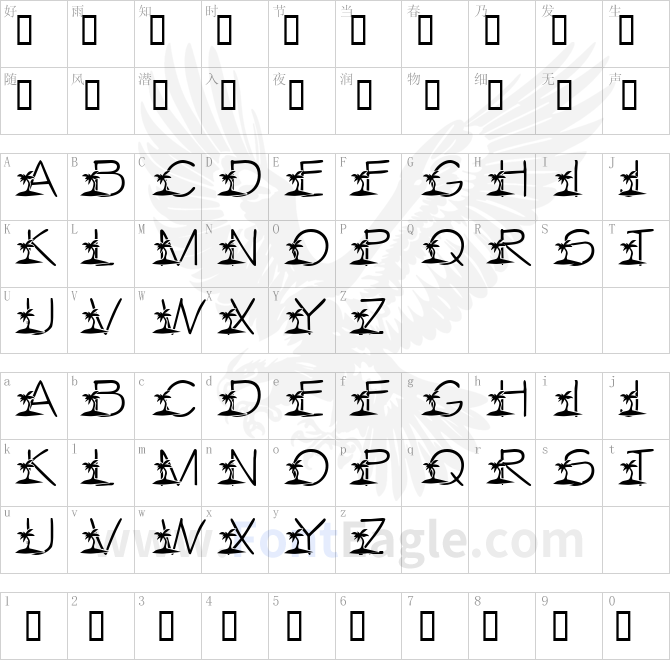
- Font name:LMS Tropical Island Dream
- Font Subfamily ID:LMS Tropical Island Dream
- Font Full Name:LMS Tropical Island Dream
- Postscript:LMS Tropical Island Dream